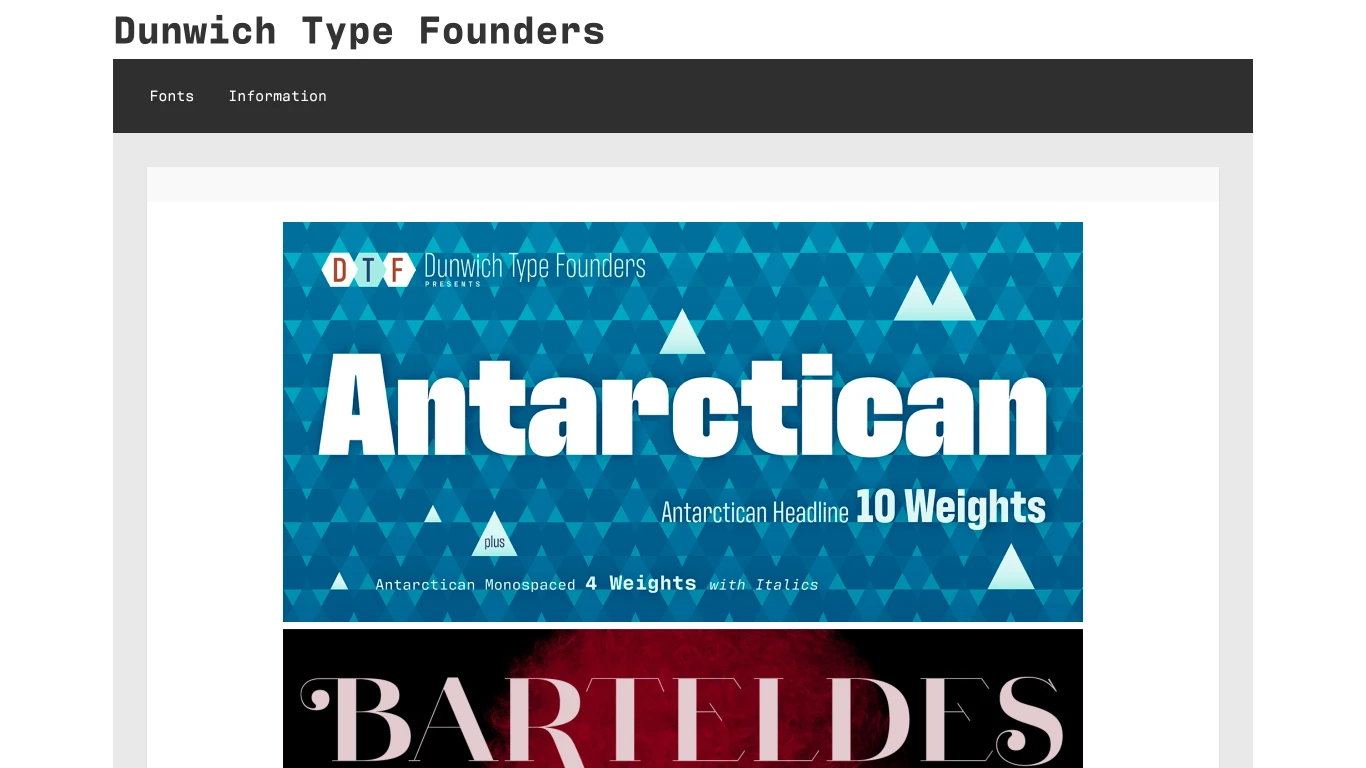
2008
Dunwich Type Founders, established in 2008 by James Puckett, is a Boulder, Colorado-based type design studio specializing in creating new typefaces inspired by the history of American type and lettering.Their expertise lies in reviving historical designs, such as the 'Becker Gothics,' which breathe new life into the gothic alphabets from the 1854 lettering manual 'Ornamental Penmanship.' Notable typefaces include 'Antarctican,' 'Barteldes,' and 'Gigalypse,' each reflecting a blend of historical awareness and modern design sensibilities.